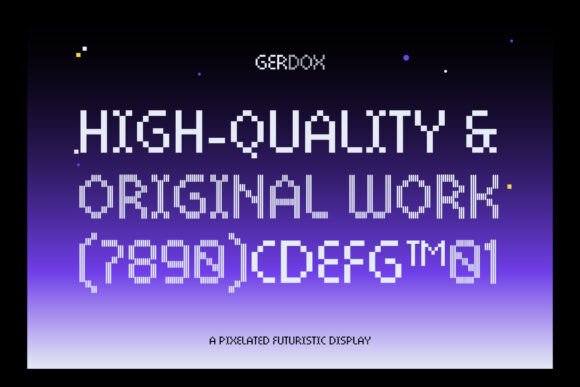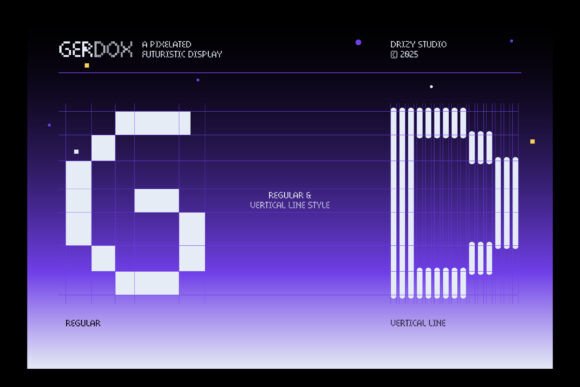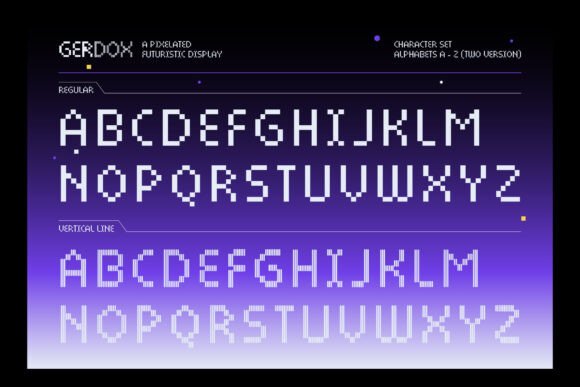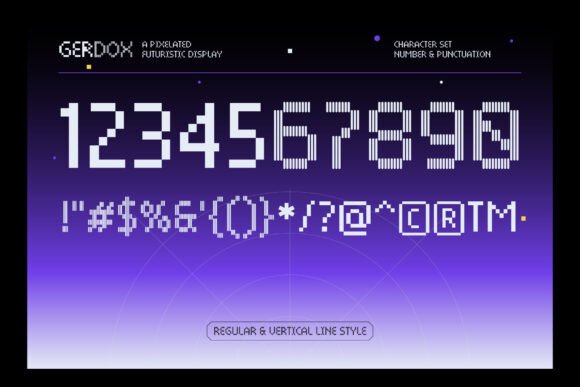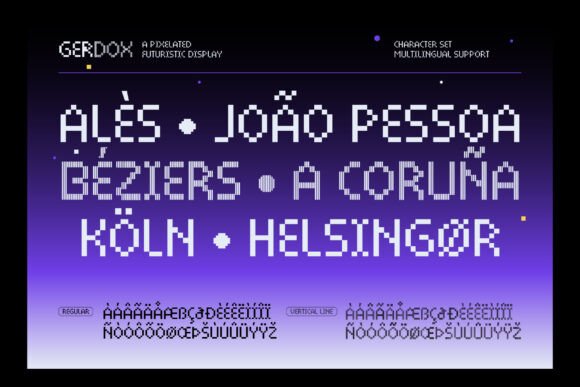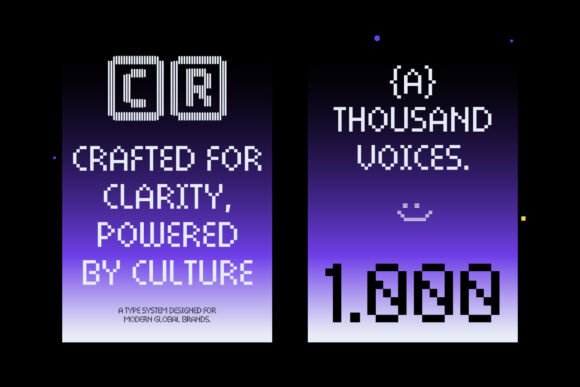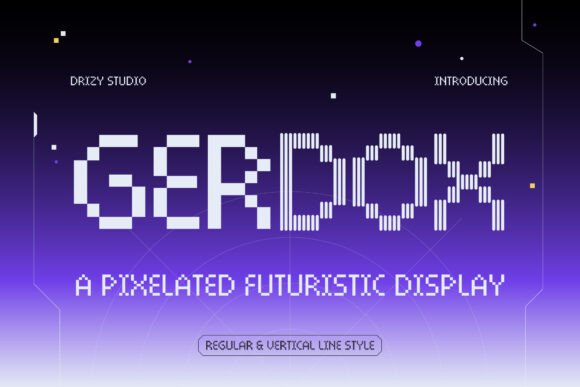
Gerdox Font: A Futuristic Modular Typeface for the Digital Age
In the realm of typography, few fonts have managed to capture the essence of a futuristic, high-tech world quite like Gerdox. This pixelated, modular typeface is a standout in the world of digital design, offering a unique blend of retro charm and cutting-edge style. In this article, we’ll delve into the world of Gerdox, exploring its design, characteristics, and uses, as well as why it’s become a go-to font for designers and crafters looking to add a touch of sci-fi flair to their work.
The Design of Gerdox
Gerdox is a member of the Futuristic Modular Line, a family of typefaces characterized by their grid-based, pixelated structure. Each character in Gerdox is constructed from sharp angles and blocky geometry, giving it a distinctly robotic and mechanical appearance. This modular nature makes Gerdox highly versatile, allowing designers to create a wide range of custom typographic compositions that are both visually striking and cohesive.
Key Characteristics of Gerdox
- Pixelated Structure: Gerdox’s pixelated design gives it a retro feel reminiscent of old computer interfaces and video games.
- Modular Design: The font’s modular nature makes it easy to customize and manipulate, allowing for a wide range of creative applications.
- Futuristic Aesthetic: Gerdox’s futuristic look makes it perfect for designs that require a sci-fi or cyberpunk feel.
- Grid-Based: The font’s grid-based structure ensures that each character is perfectly aligned, making it ideal for creating cohesive typographic compositions.
Uses of Gerdox
Gerdox is an incredibly versatile font, suitable for a wide range of design applications. Here are just a few examples:
- Branding and Logo Design: Gerdox’s unique, futuristic aesthetic makes it perfect for brands looking to establish a strong, high-tech identity.
- Web Design: The font’s pixelated structure and modular design make it well-suited for digital interfaces, including websites, apps, and video games.
- Graphic Design: Gerdox is ideal for creating striking, attention-grabbing graphics, including posters, flyers, and brochures.
- Crafting and DIY Projects: The font’s futuristic aesthetic makes it perfect for crafters and DIY enthusiasts looking to add a touch of sci-fi flair to their projects.
Why Designers and Crafters Love Gerdox
So why has Gerdox become a favorite among designers and crafters? Here are just a few reasons:
- Unique Aesthetic: Gerdox offers a truly unique aesthetic that’s hard to find in other fonts.
- Versatility: The font’s modular design and grid-based structure make it incredibly versatile, suitable for a wide range of design applications.
- High-Quality Design: The font is designed to high standards, ensuring that it looks great in any design application.
In conclusion, Gerdox is a truly unique and versatile font that’s perfect for designers and crafters looking to add a touch of futuristic flair to their work. Its pixelated, modular design and grid-based structure make it ideal for a wide range of design applications, from branding and logo design to web design and crafting. Whether you’re looking to create a striking, attention-grabbing graphic or establish a strong, high-tech brand identity, Gerdox is an excellent choice.